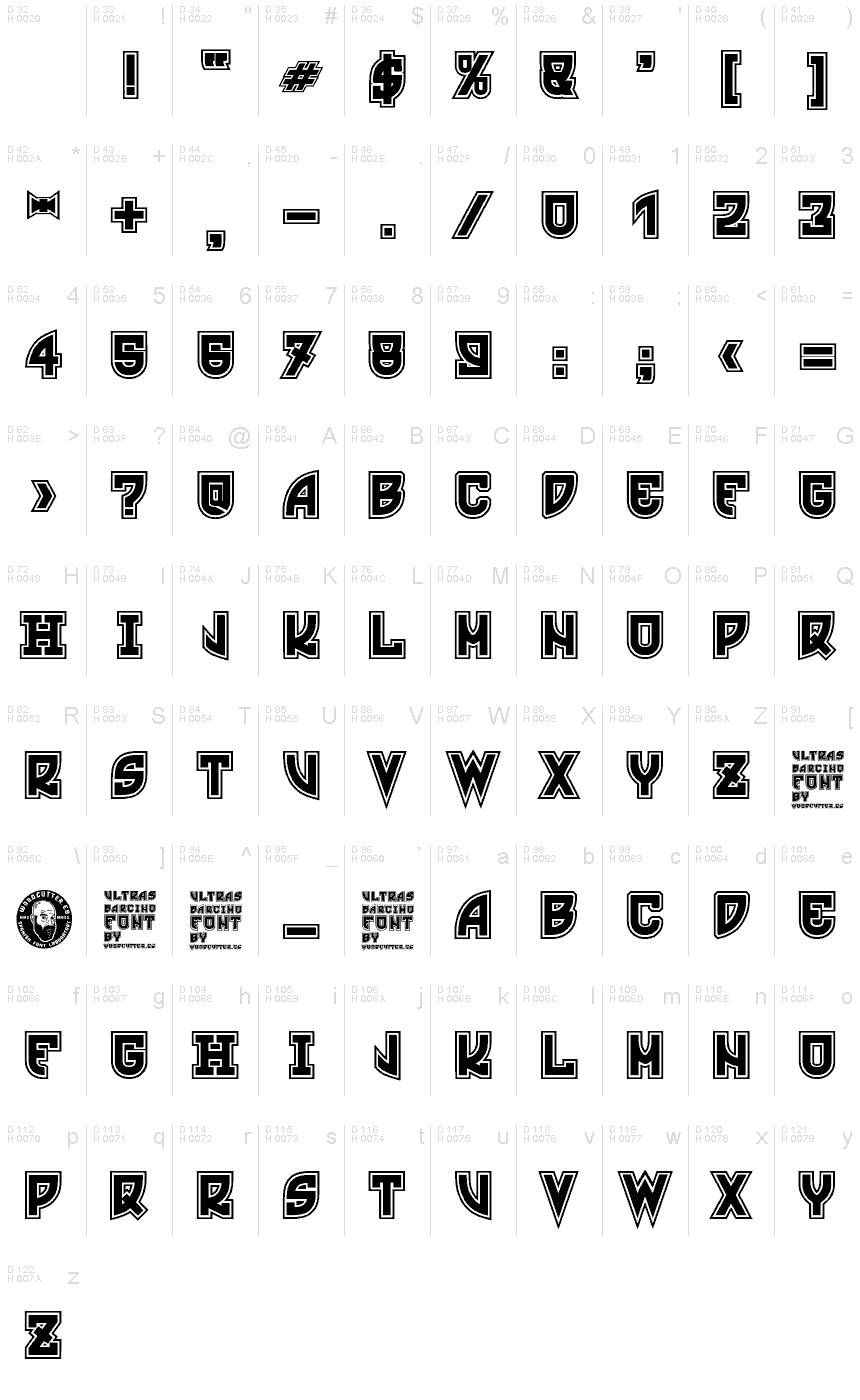
Ultras Barcino
Ultras Barcino font by Woodcutter is a bold display typeface with high-impact geometric shapes and 70s-inspired decorative elements. It shows solid glyphs designed in a modern-retro vibe making it perfect for standout headlines, wordmarks, or artistic typography. Bold outlines make regular glyphs appear even thicker, stronger, and highly visible.